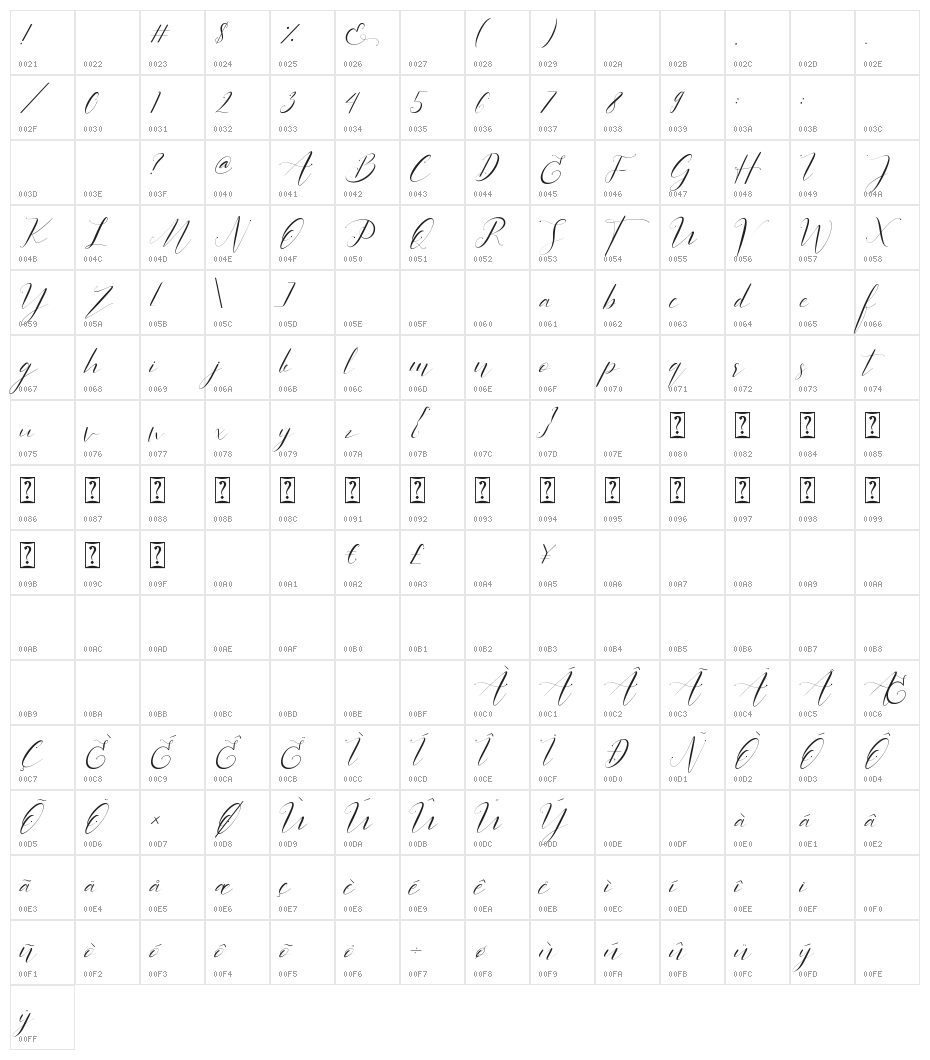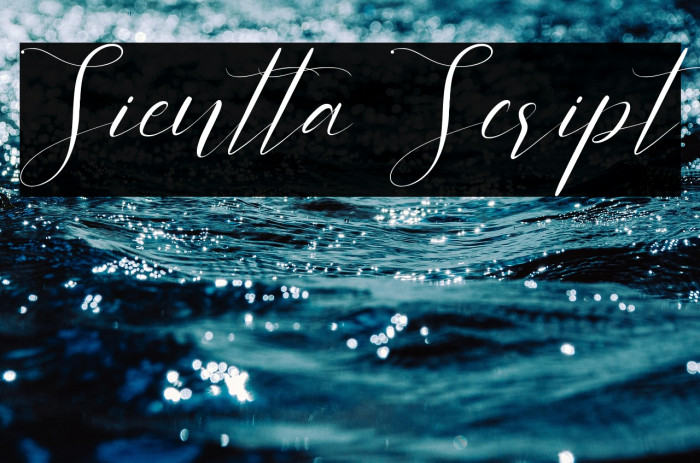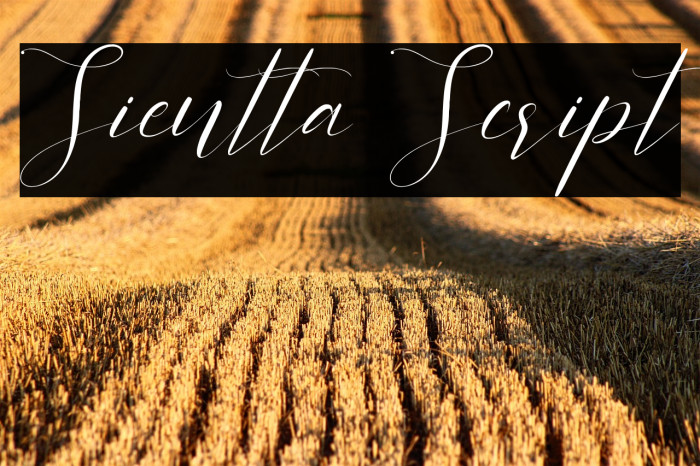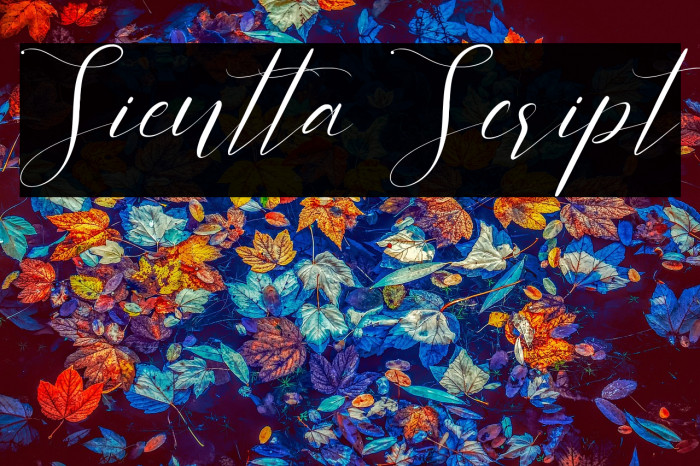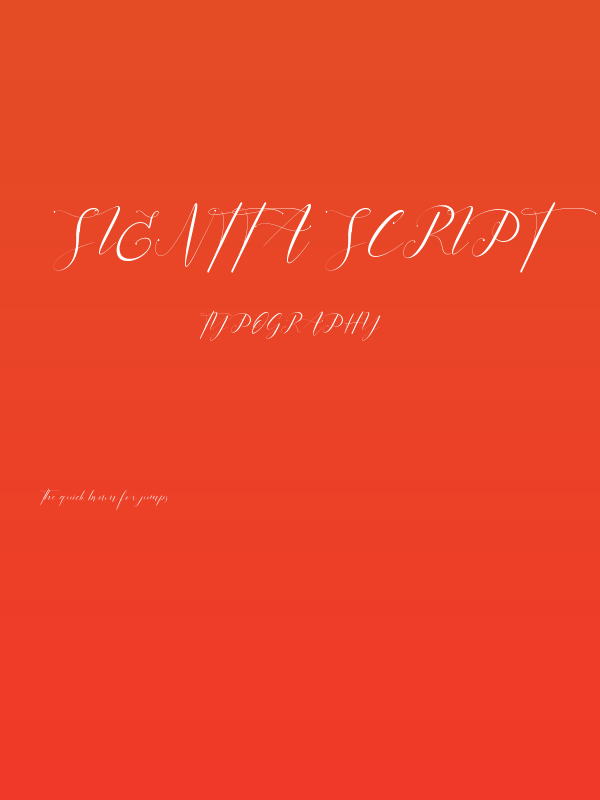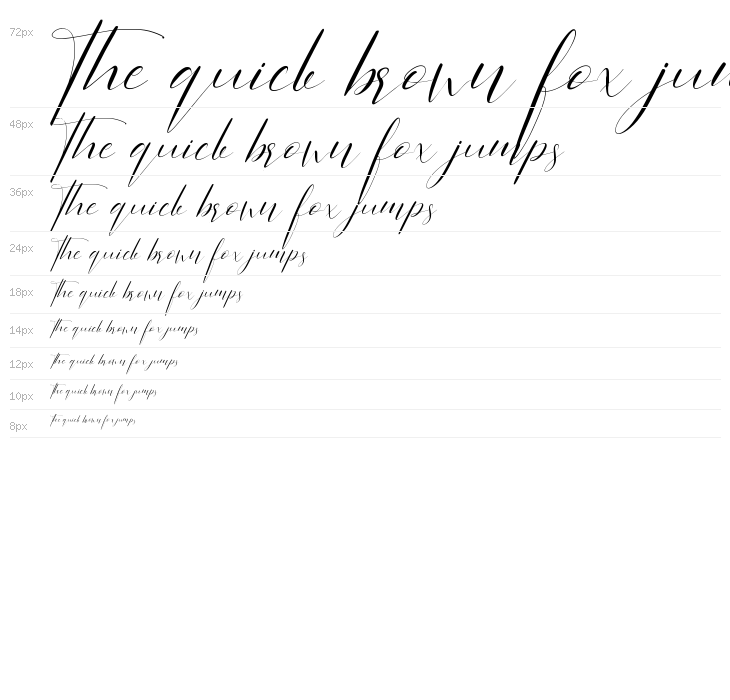
Sientta Script Font
Sientta Script Description
This elegant script font features a flowing, cursive style with delicate, sweeping lines and graceful curves. The uppercase letters are characterized by their tall, slender forms and intricate loops, while the lowercase letters maintain a consistent fluidity, enhancing the overall elegance. The numerals and special characters are crafted with the same attention to detail, ensuring a cohesive appearance across all elements. This font's high contrast between thick and thin strokes adds a touch of sophistication, making it ideal for formal and decorative applications.
| Overall Style | Elegant, Decorative |
| Use Case | Invitations, Logos, Decorative text |
| Proposed Projects | Ideal for wedding invitations, elegant branding, luxury packaging, and decorative headings. |